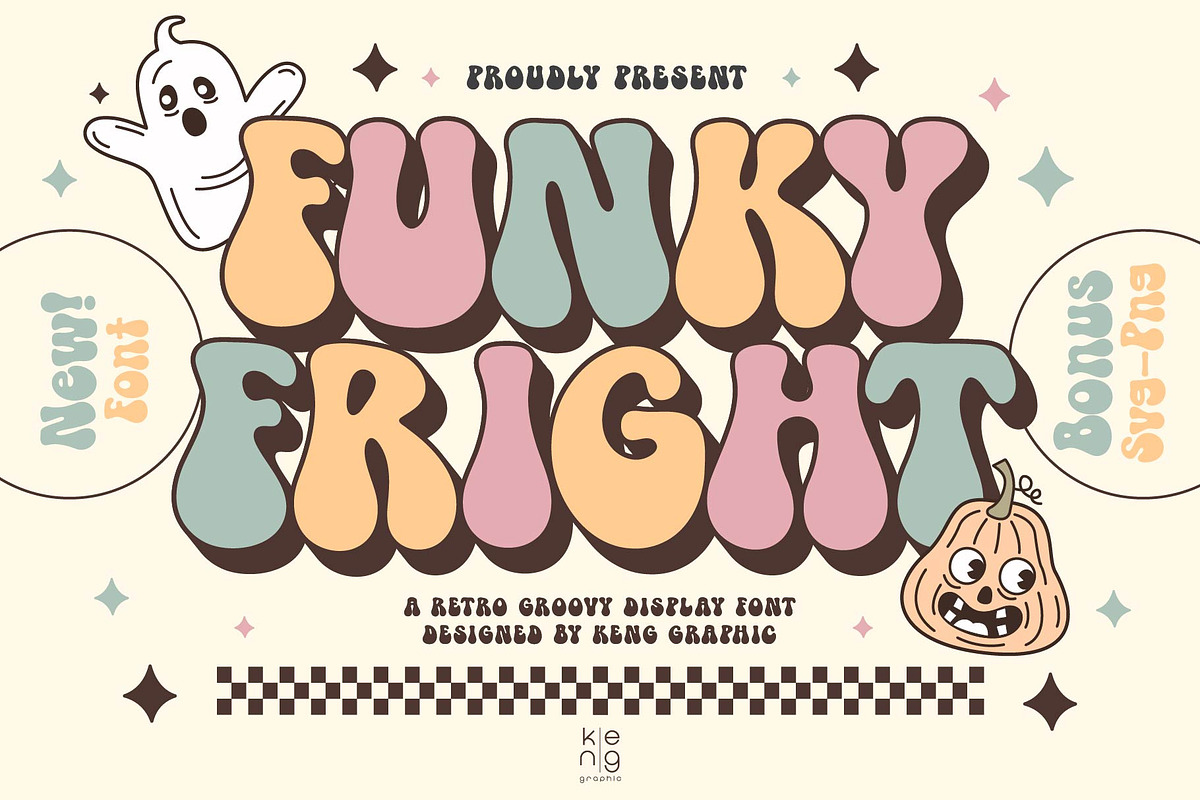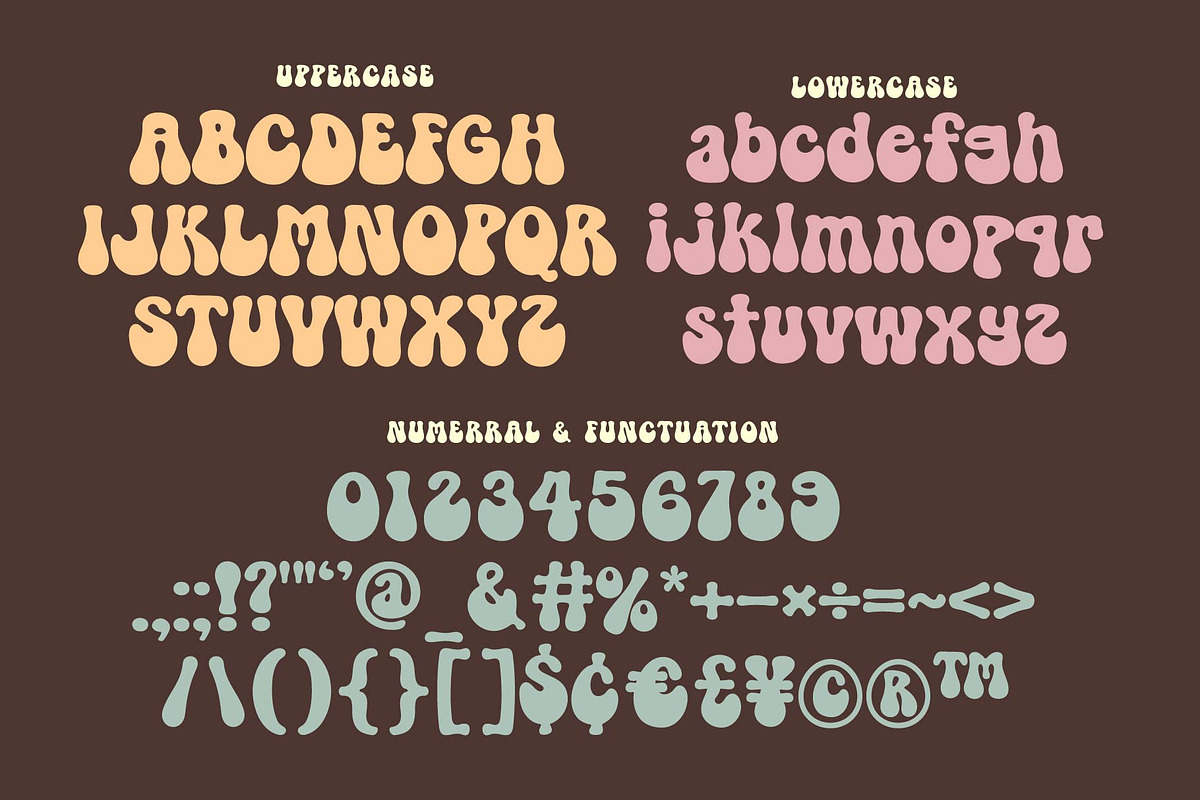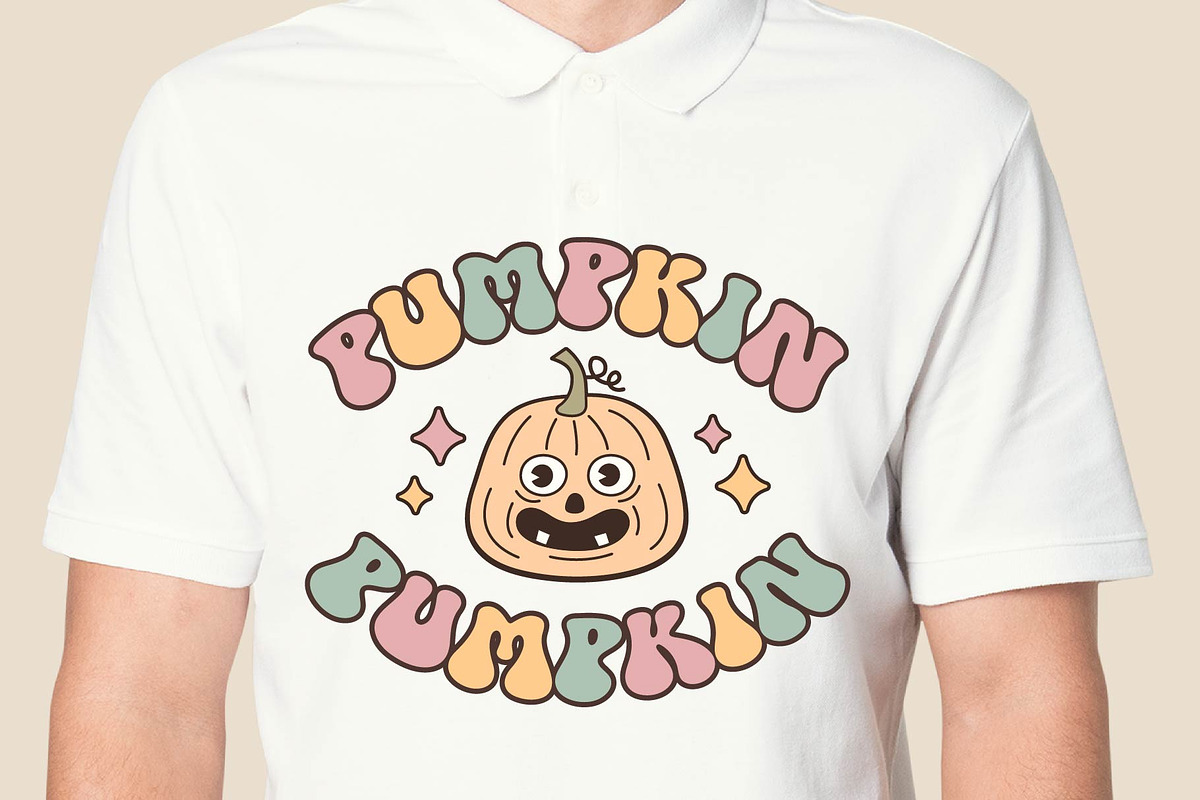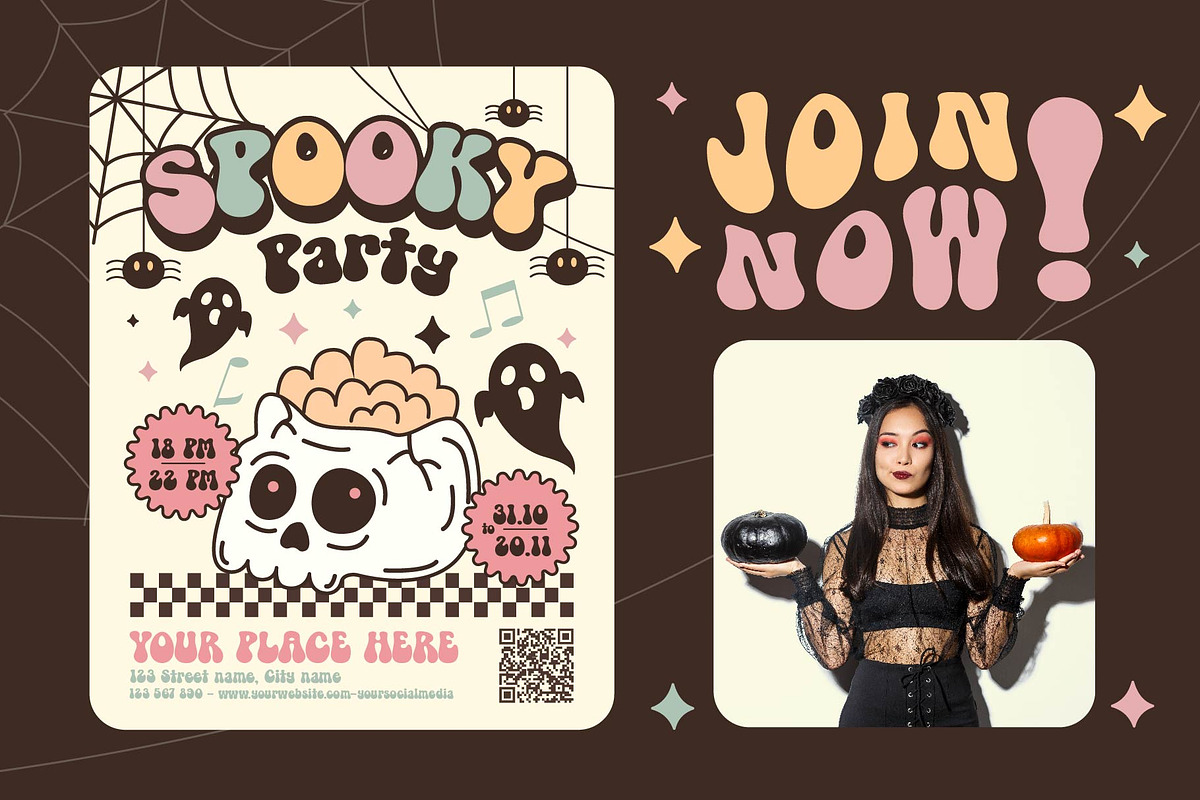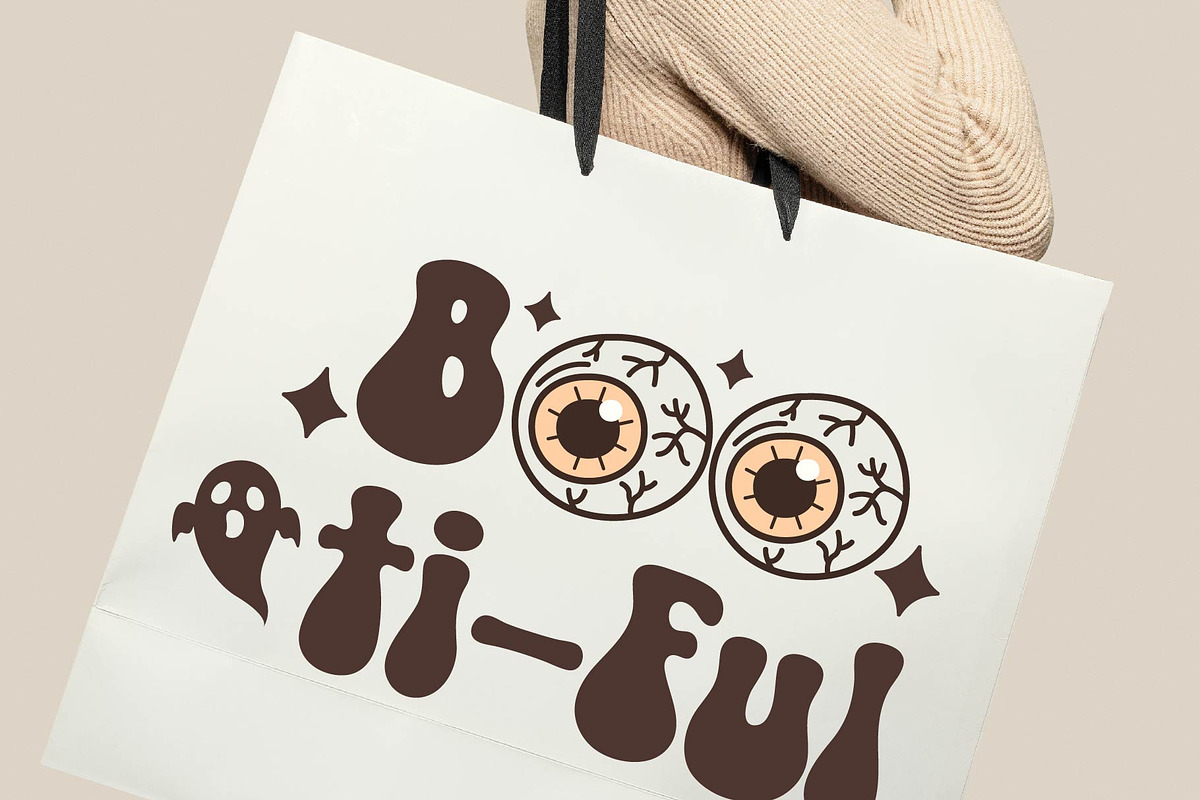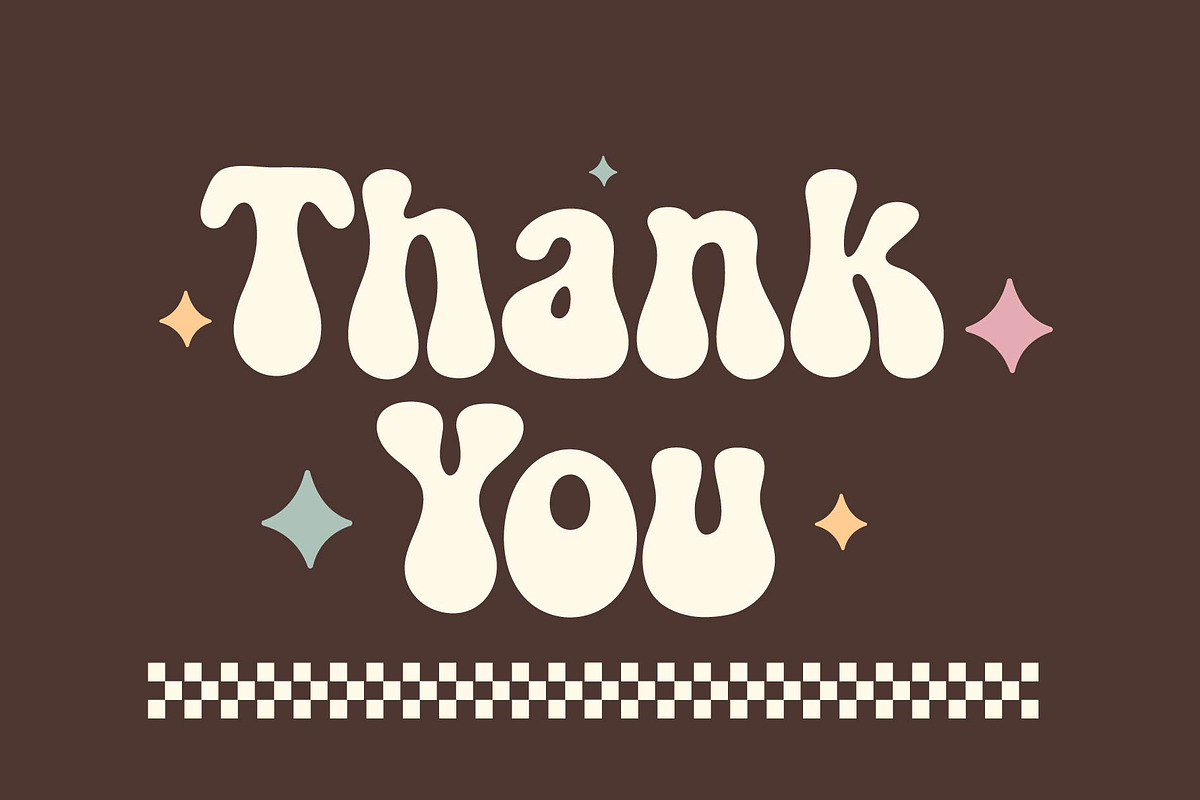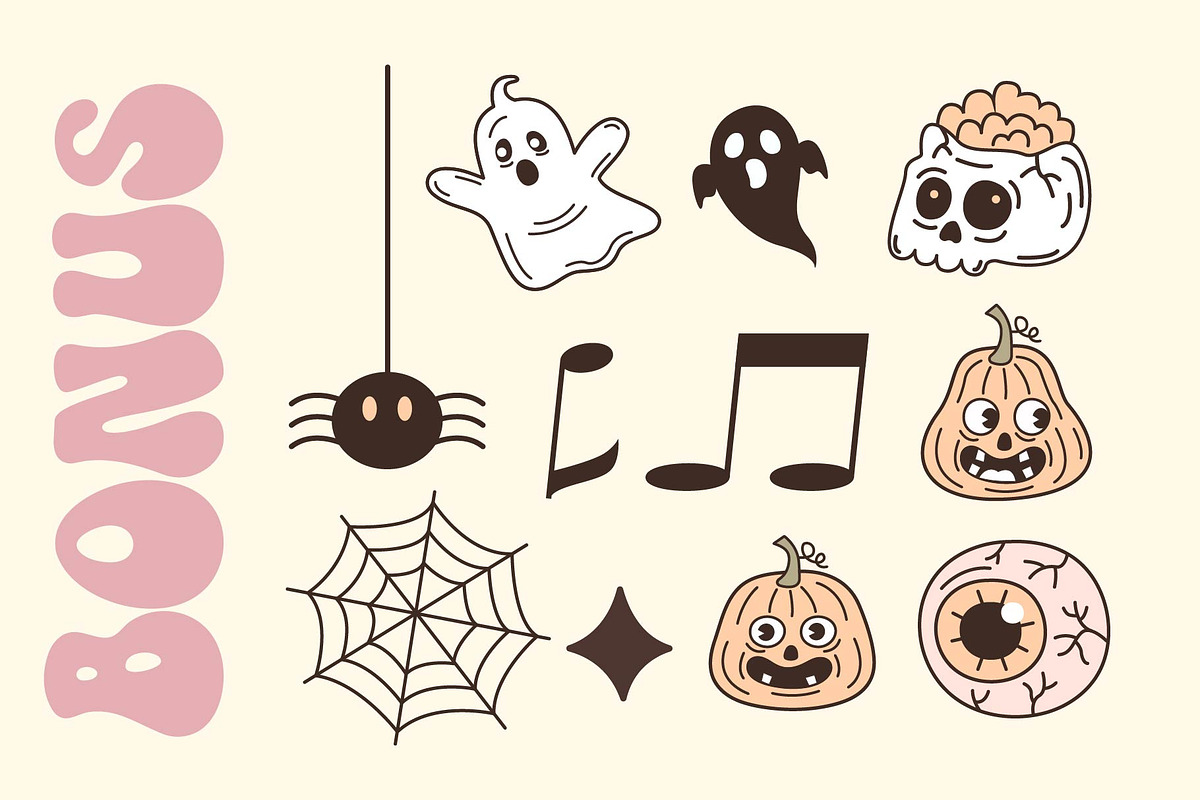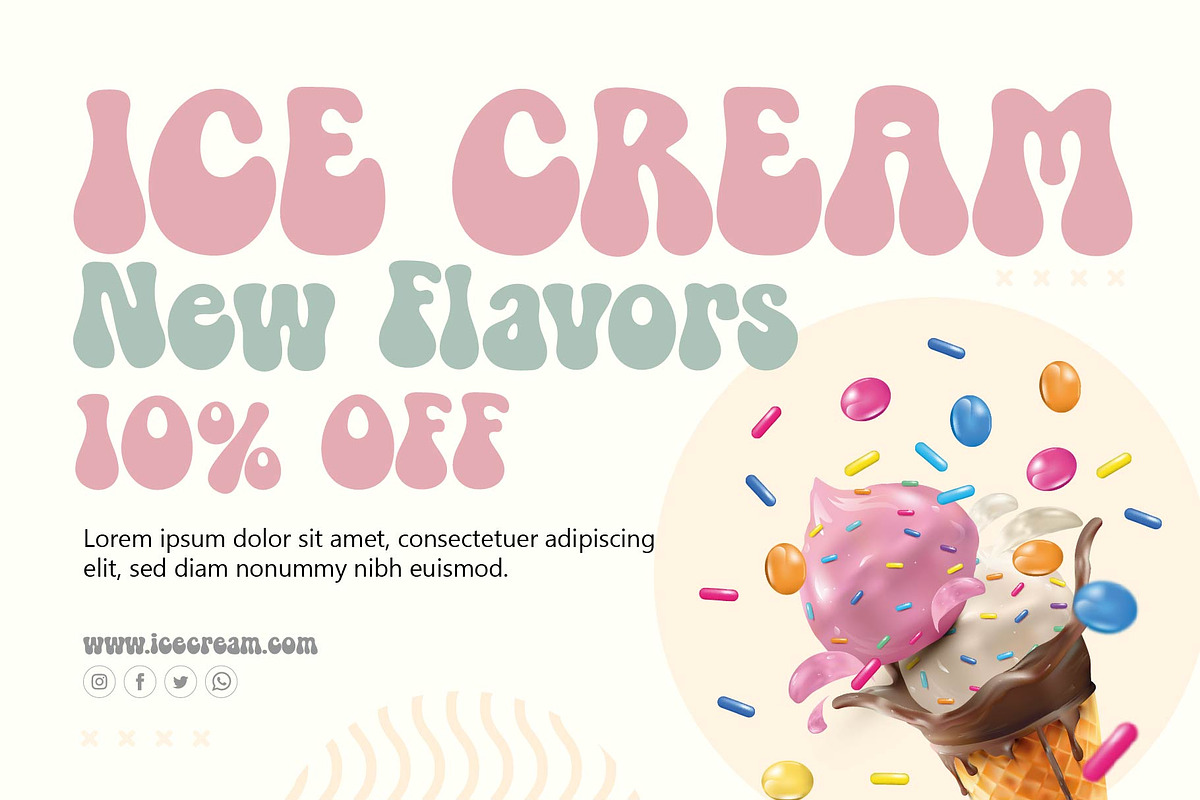
Funky Fright Font
Immerse your designs in the vivid energy of the past with Funky Fright – a Retro Groovy Display Font. Ideal for jazzing up posters, sprucing festive cards, enhancing promotional signage, or just about any creative venture craving panache. With its bold character, it’s guaranteed to make your design project beam, grab eyeballs and leave an unforgettable impression. Enliven your artistic vision with the enchanting flashback flair of Funky Fright!